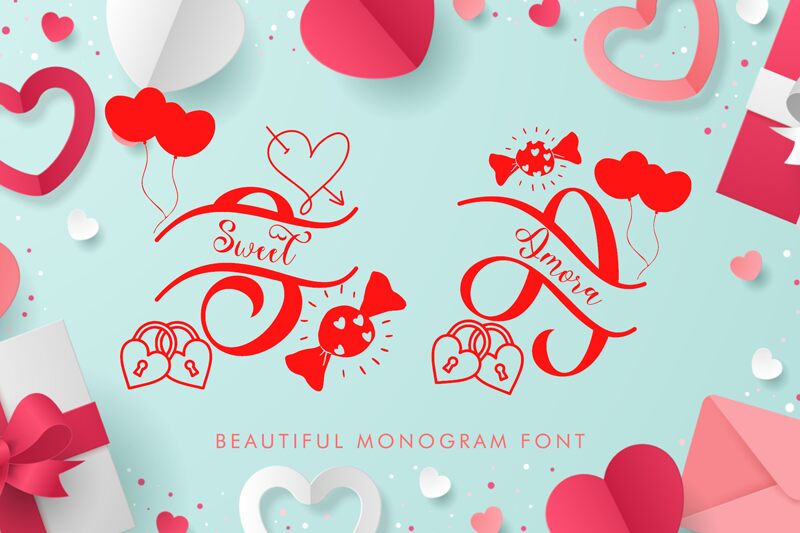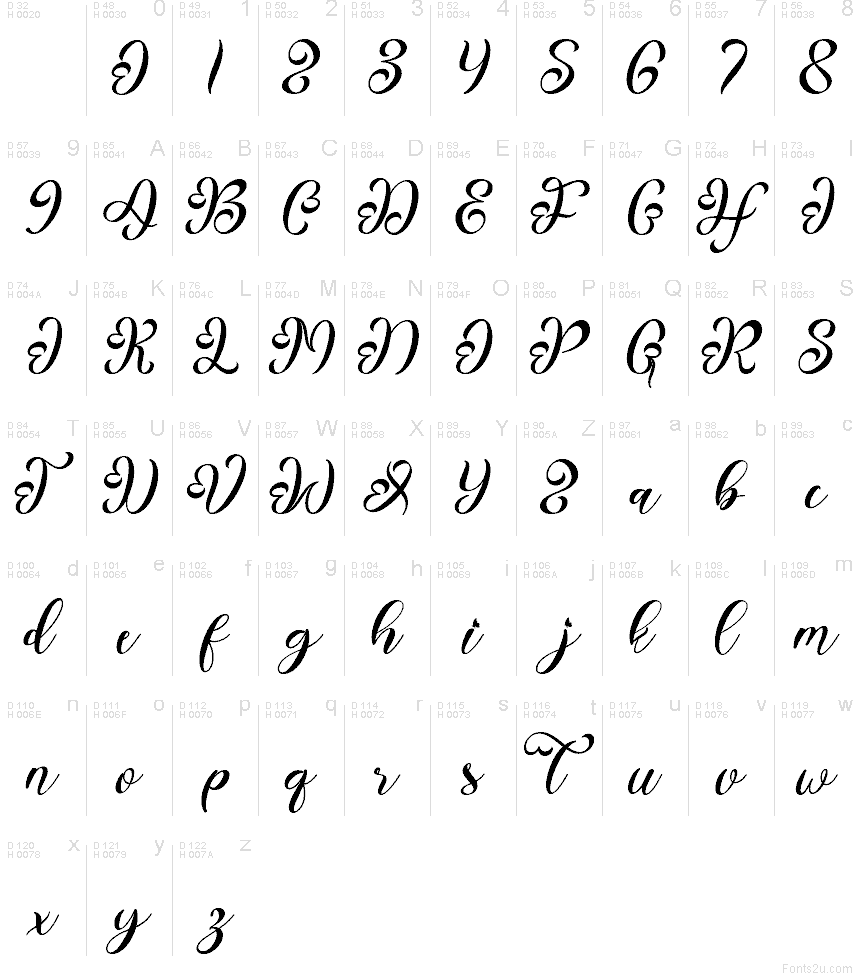
Sweet Amora Italic Demo Italic
Sweet Amora Italic font by Yoga Letter is a free holiday calligraphy typeface that feels like a handwritten love note. Its flowing loops, long swooping tails, and smooth ink-like strokes create a soft, romantic rhythm that instantly says Valentine’s Day. The letters connect with an easy grace, giving words a natural, affectionate warmth rather than a stiff, formal script vibe.
Using Sweet Amora Italic, your text looks ready for love-themed cards, wedding invitations, engagement announcements, product packaging for sweets or cosmetics, social media quotes, and boutique logos. This free font shines at larger sizes where its curves can really breathe; pair it with a clean sans serif for small details or body text so the script can stay center stage.